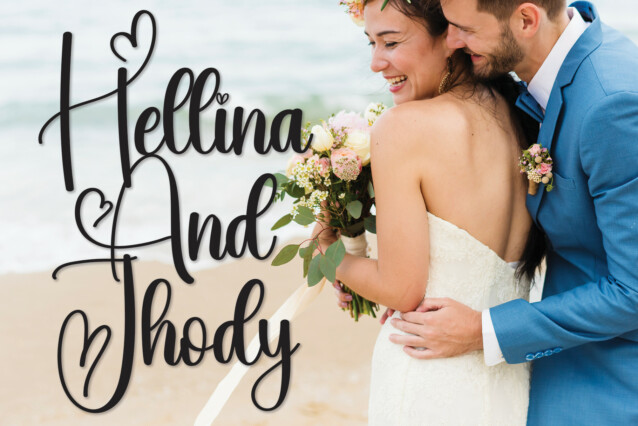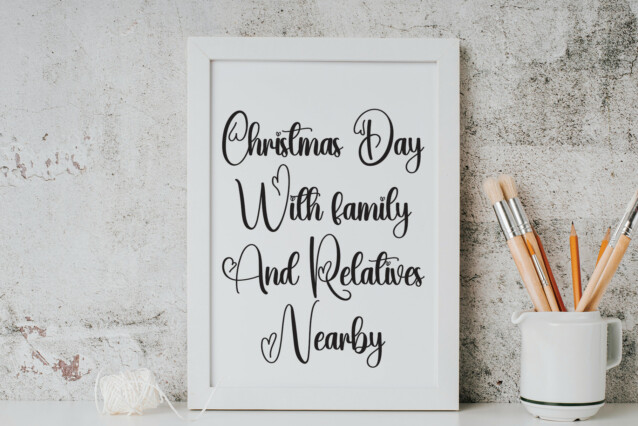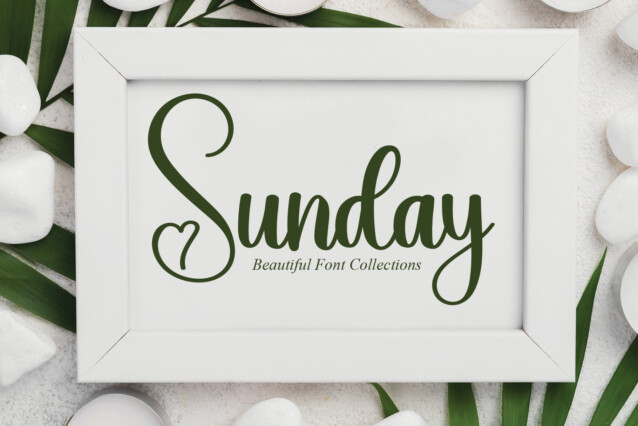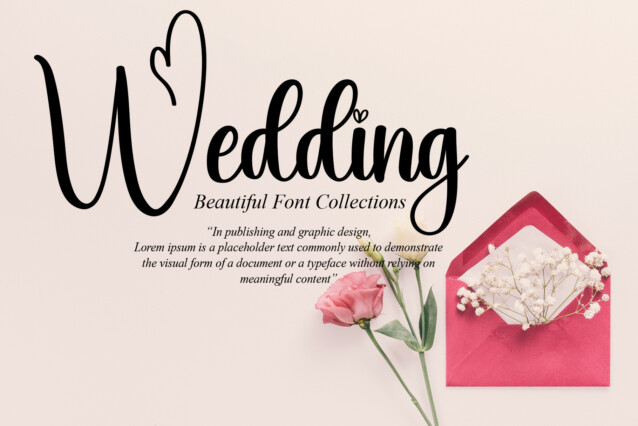
Look Out Script Font
Look Out Script Font is a modern and stylish handwritten script font. Not too thin and not too thick, balanced and varied, this font was designed to enhance the beauty of your projects.